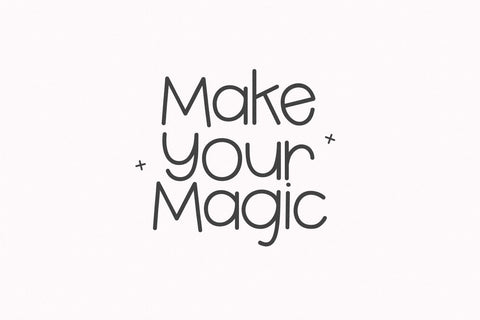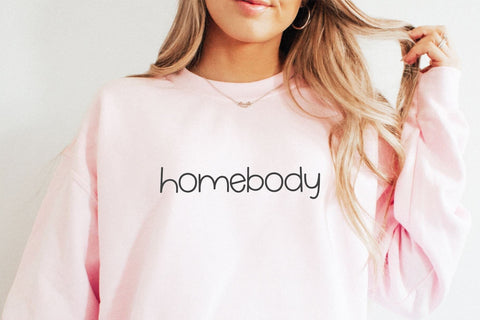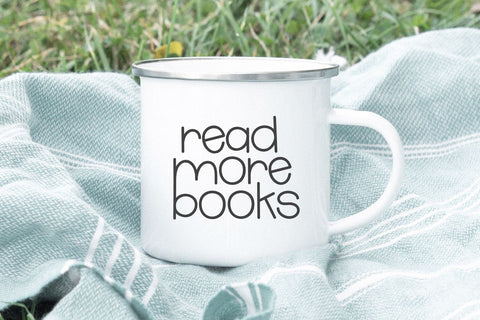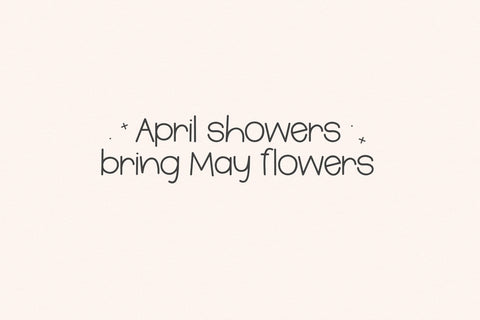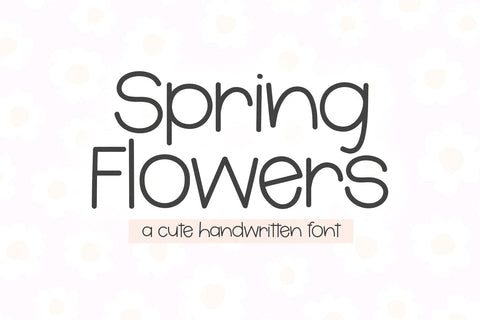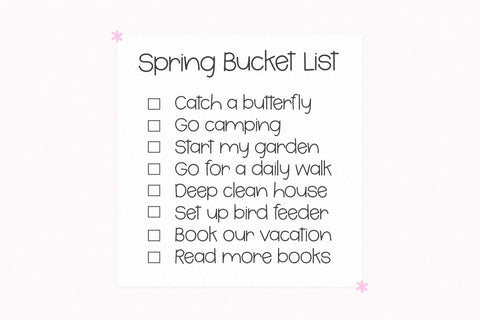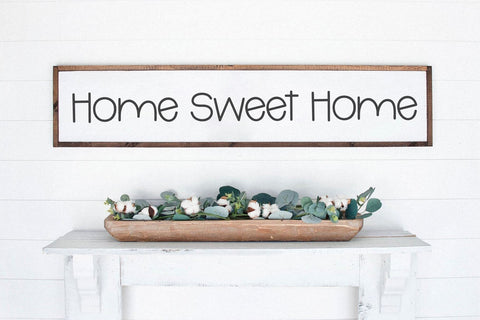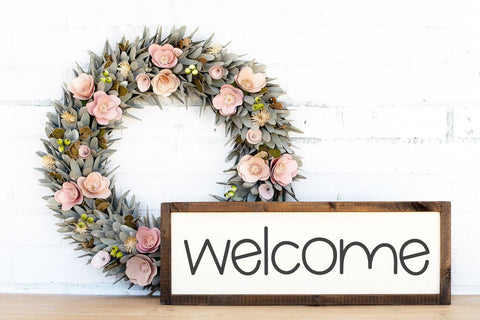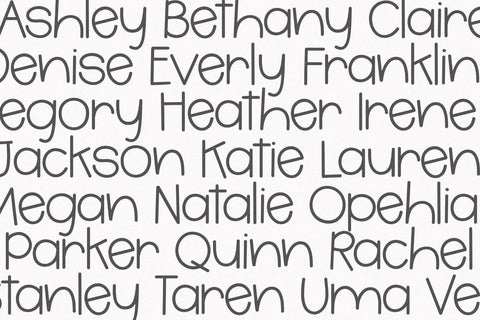
Spring Flowers - Cute Handwritten Font
Spring Flowers is a fun handwritten font
This font is perfect for cricut projects, canva, procreate, stickers, shirts, teachers, logos, planners, goodnotes and more!